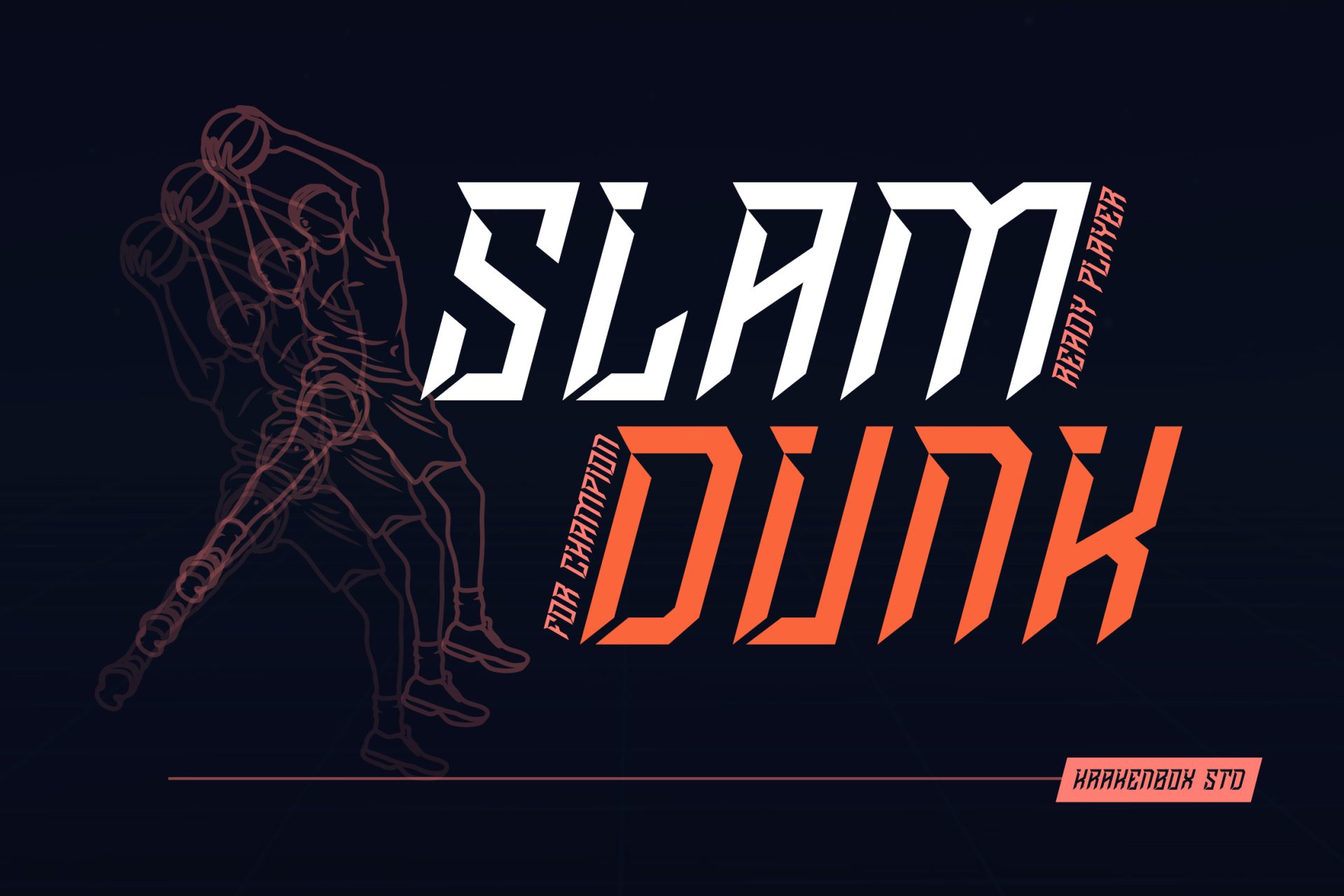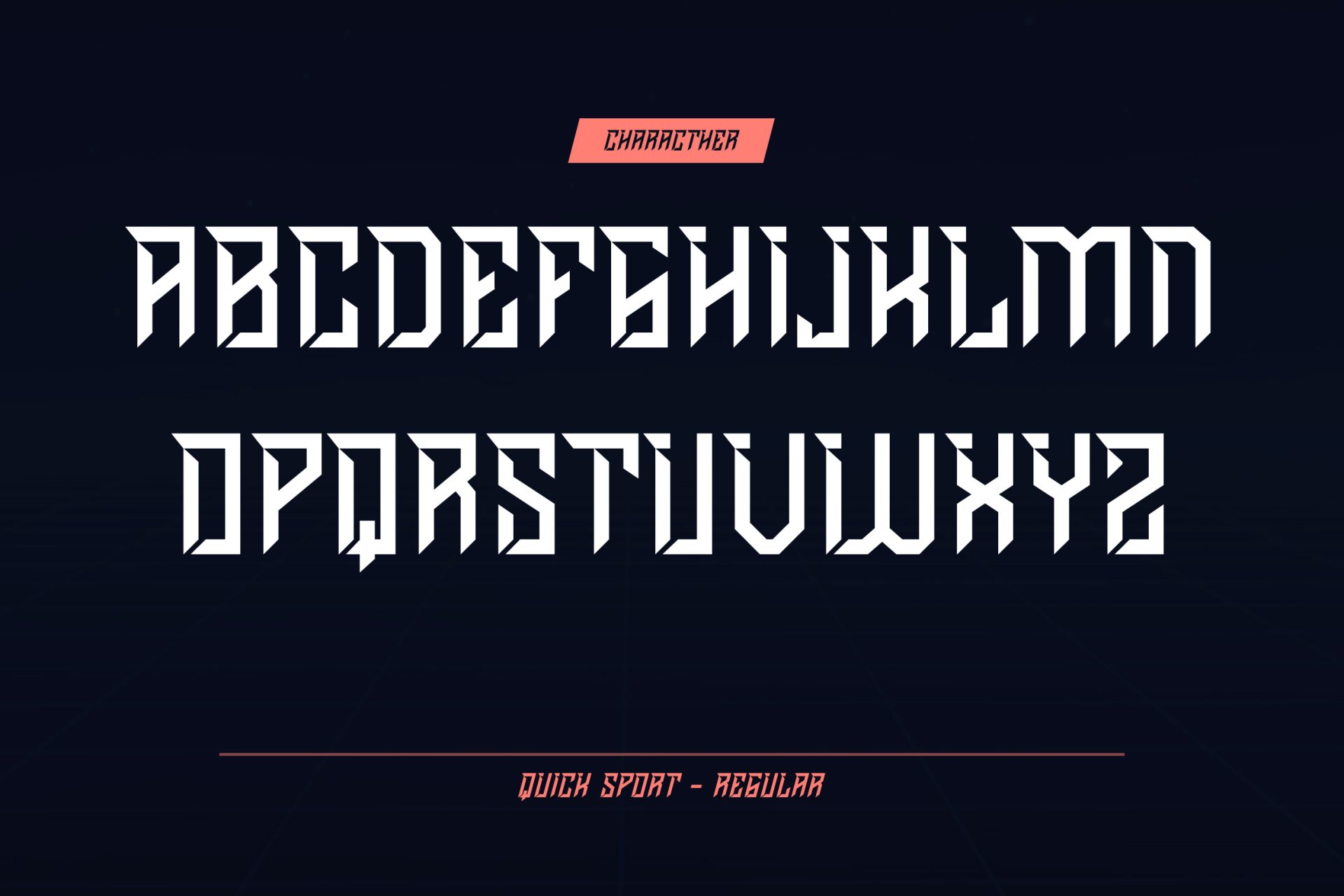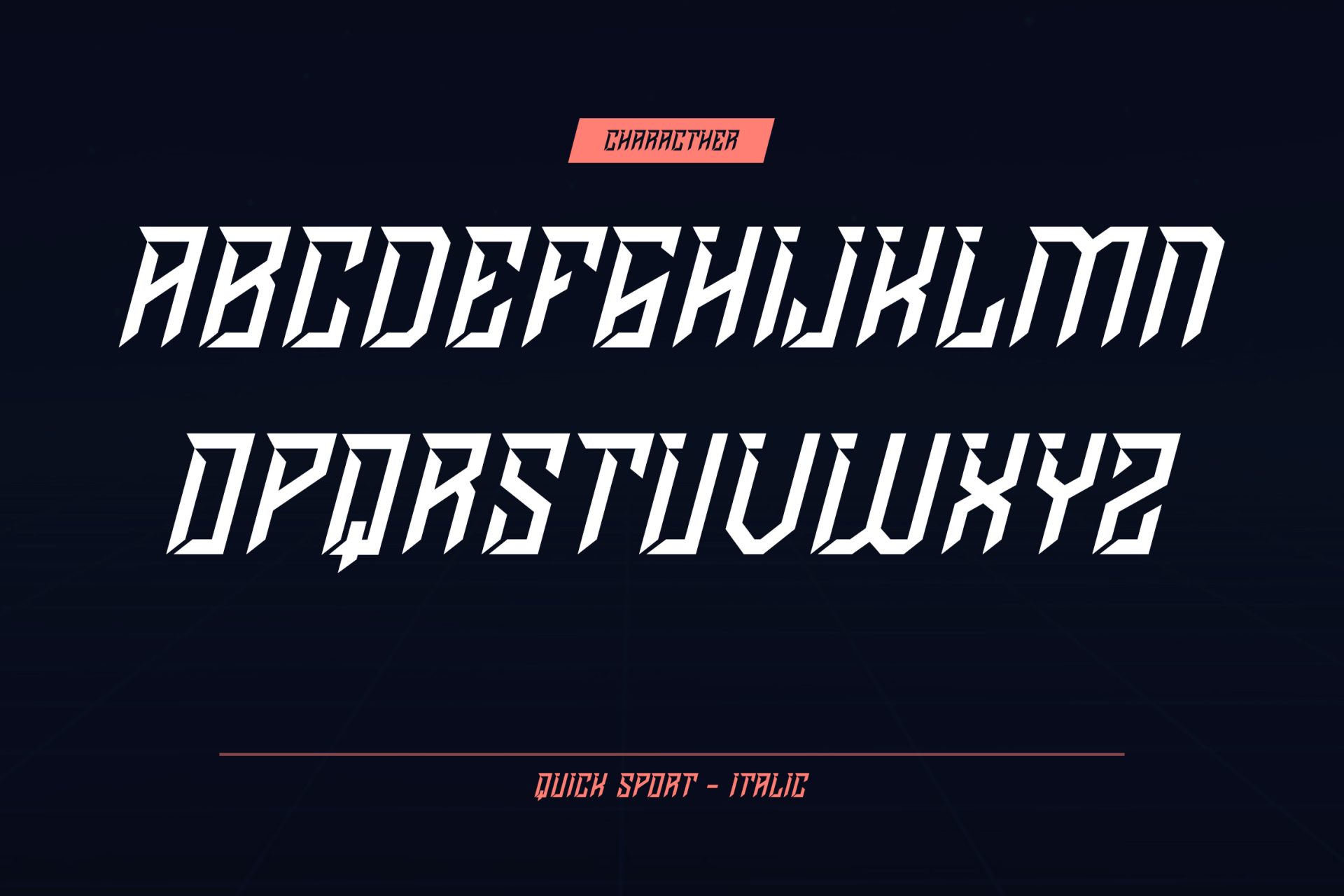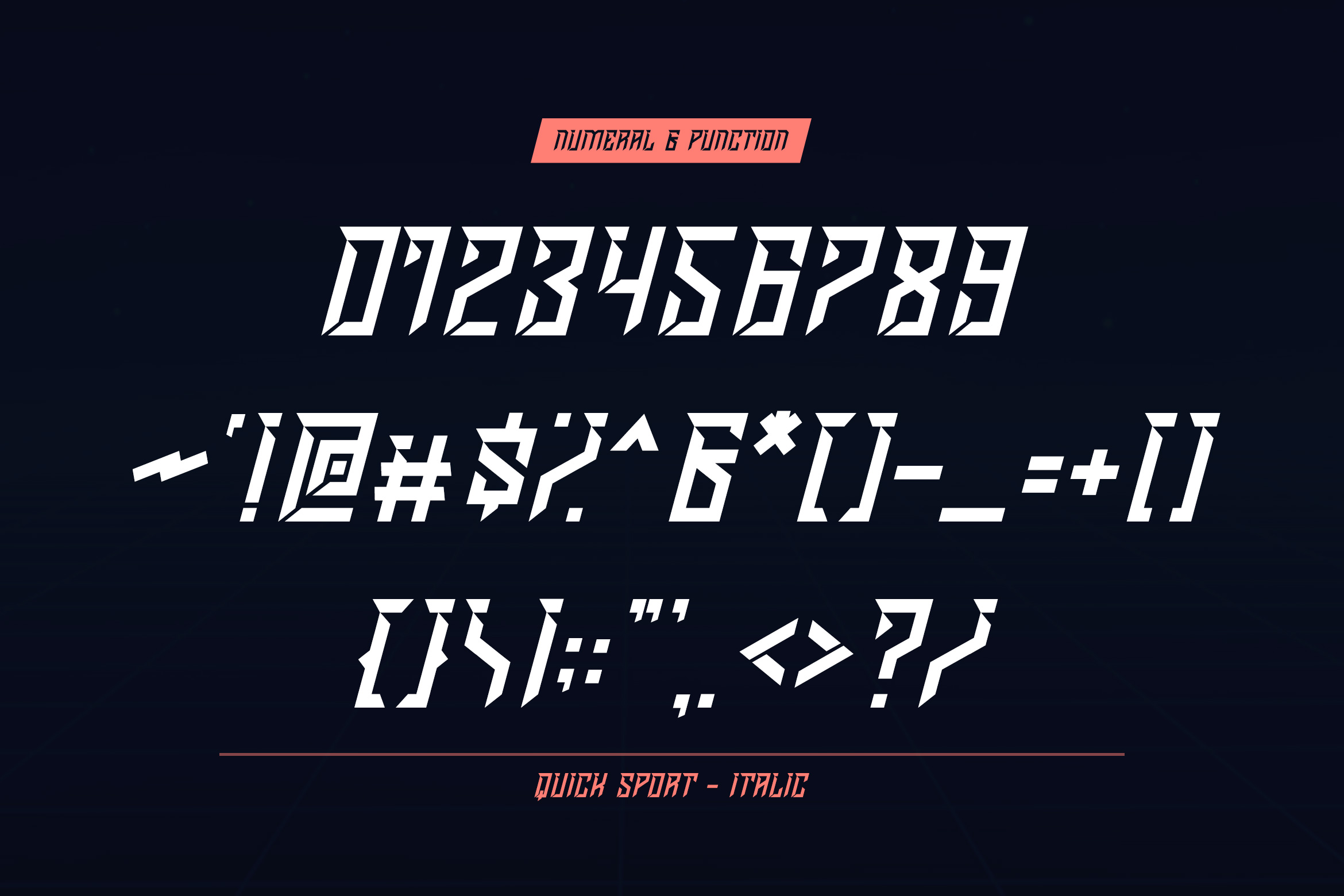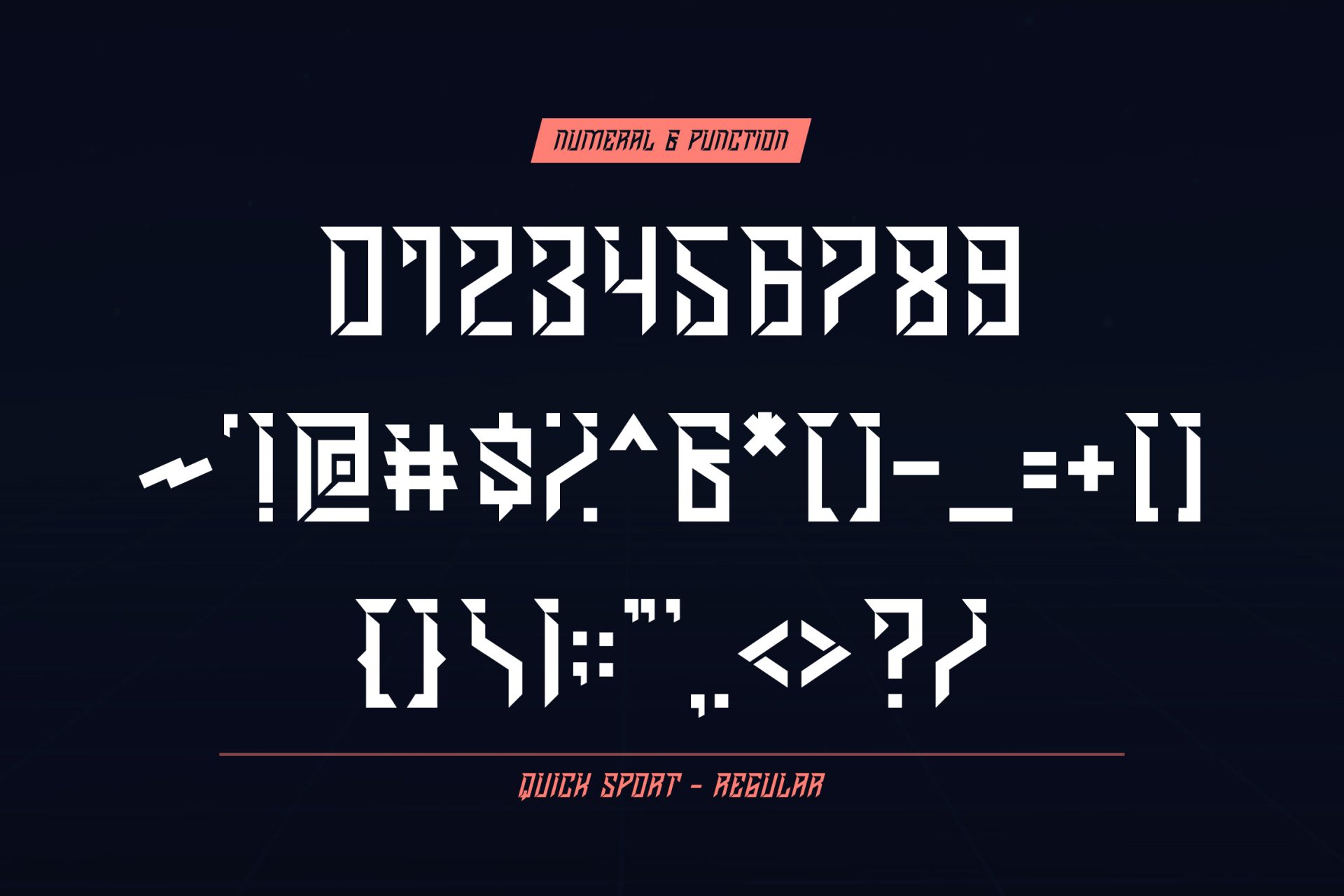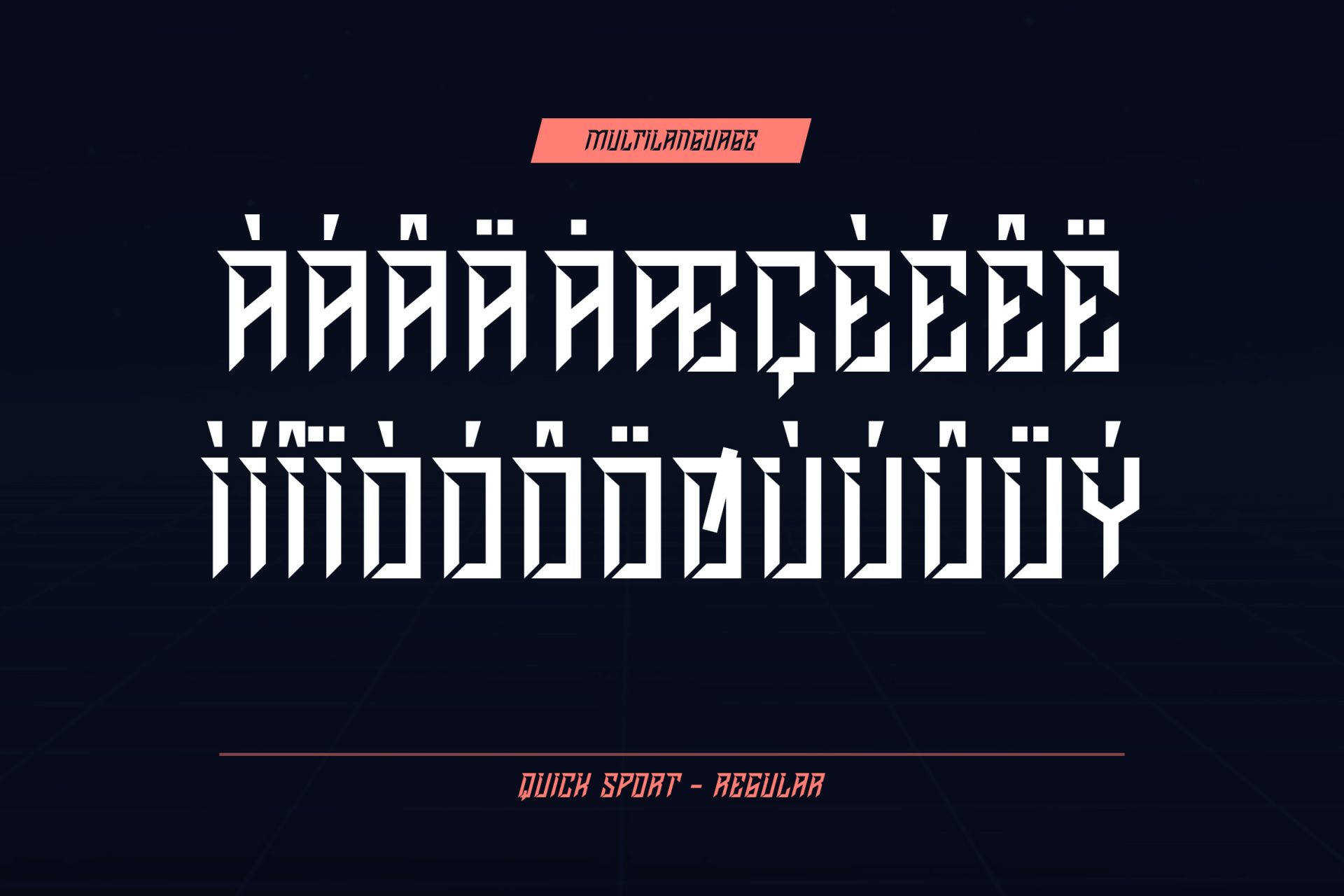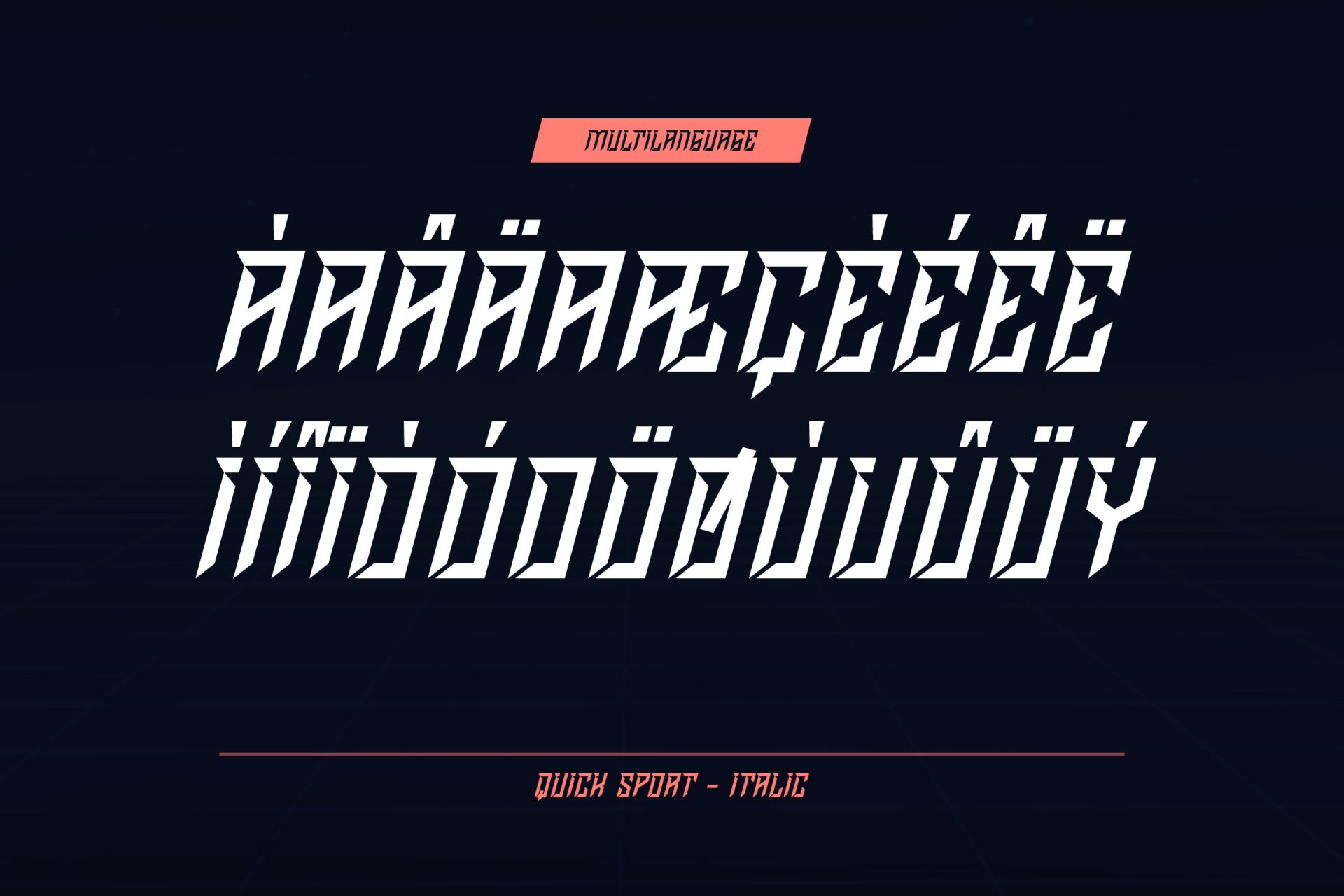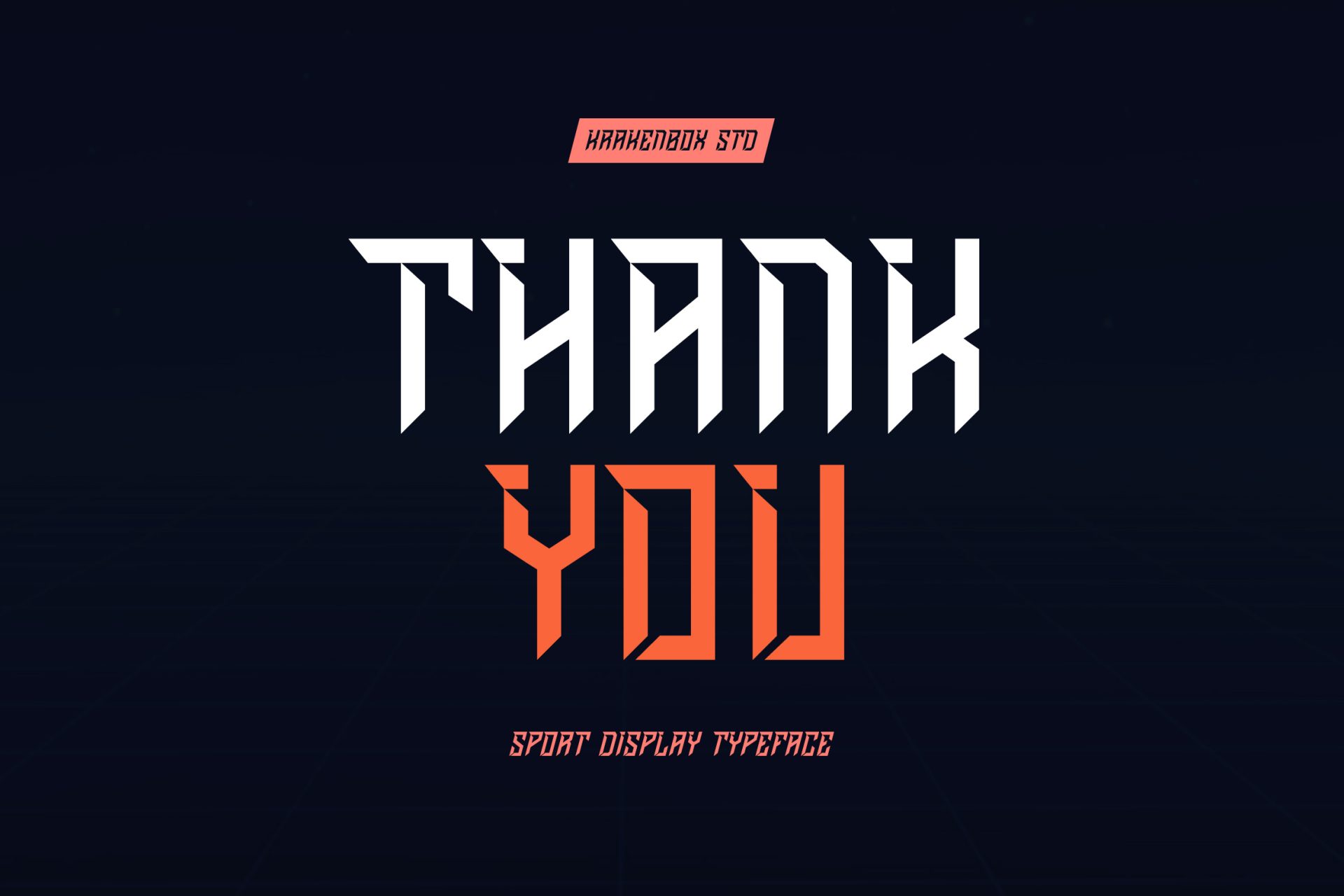
Quick Sport is Sport Display Typeface. It has sci-fi, modern, and cool. It’s a great font for sport, esport, fashion, apparel projects, signature, album cover, logo, branding, magazine, social media, & advertisements, but also works great for other projects.